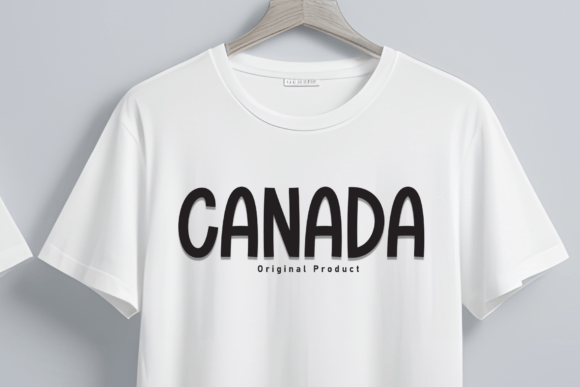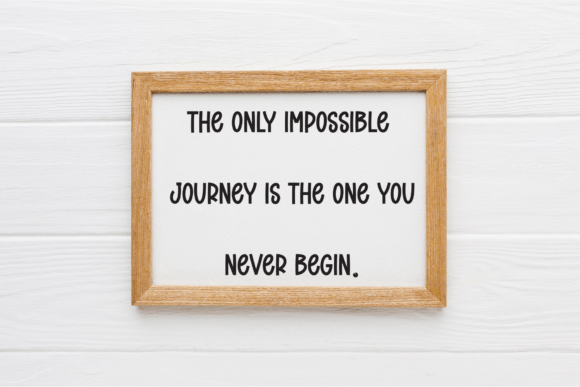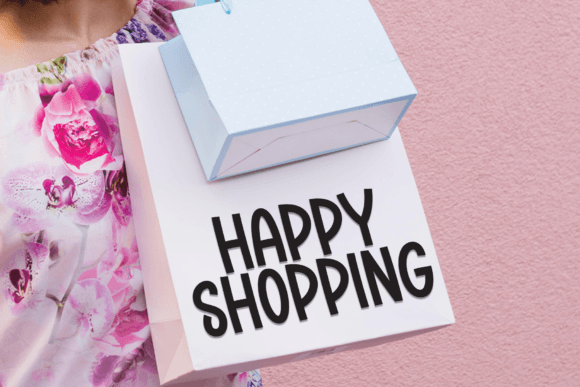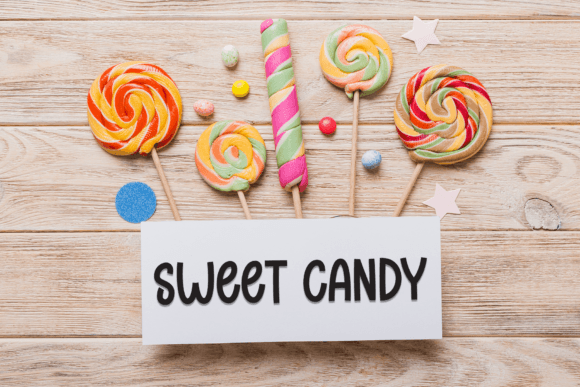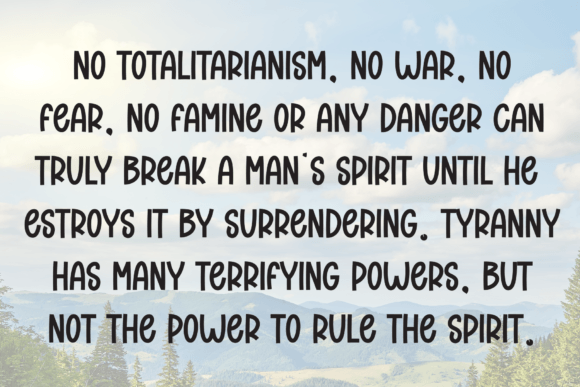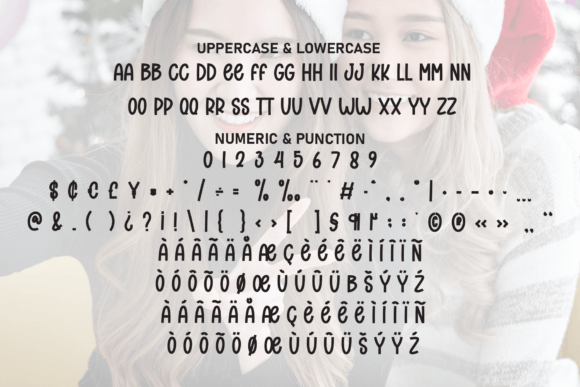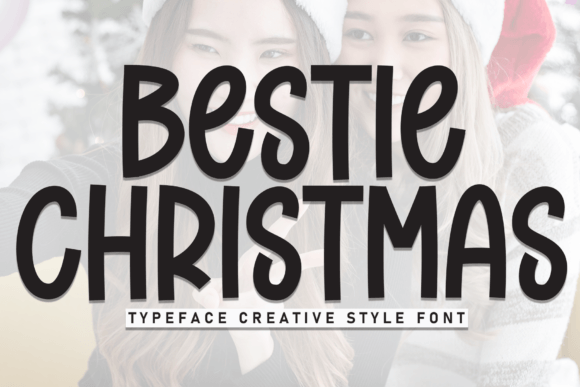
The Magic of Bestie Christmas Font: A Holiday Design Delight
It’s that time of the year again – the holiday season is just around the corner, and as designers, crafters, and creative hobbyists, we’re on the lookout for that perfect font to make our Christmas cards, decorations, and gifts shine. I still remember the year I spent hours scouring the internet for the ideal font for a client’s Christmas project, only to settle for something that was ‘good enough.’ But what if I told you that I’ve discovered a font that will make your holiday designs feel cozy, festive, and truly special? Say hello to Bestie Christmas Font!
A Personal Review: What I Love About Bestie Christmas Font
Bestie Christmas is a charming, handmade font that has captured my heart. Here’s what I love about it:
- ✨ Warm and playful design that instantly evokes the holiday spirit
- ✅ Perfect for creating cozy Christmas cards, decorations, and gifts
- 💕 Unique, handmade feel that adds a personal touch to any design
- 🎉 Highly legible, even at smaller font sizes
While Bestie Christmas Font is a delightful addition to any design project, there are a few minor quirks to keep in mind:
- 🤔 Some letters may require adjusting kerning for optimal spacing
- ⚠️ Limited character set, but sufficient for most holiday design needs
The Story Behind Bestie Christmas Font
Bestie Christmas Font was designed with love and care by a talented font designer who wanted to create a font that would capture the warmth and magic of the holiday season. Inspired by traditional holiday decorations and vintage Christmas cards, this font is the perfect addition to any holiday design project.
Q: What type of designs is Bestie Christmas Font best suited for?
A: Bestie Christmas Font is perfect for creating Christmas cards, decorations, gifts, and other holiday designs that require a warm and playful touch.
Q: Is Bestie Christmas Font easy to read?
A: Yes, Bestie Christmas Font is highly legible, even at smaller font sizes, making it perfect for creating designs that require a clear and readable font.